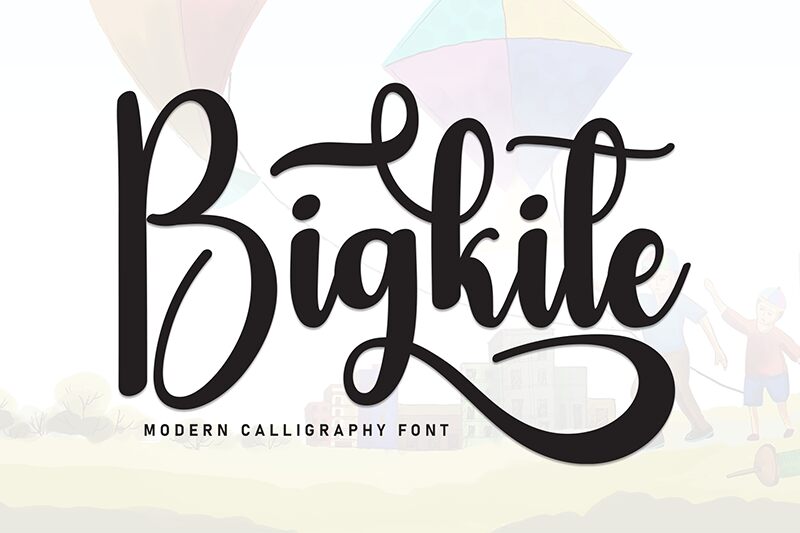
Bigkite
Bigkite font by Andi Moz is a striking handwritten free calligraphy font with ornamental and lively designs. Rich in casual elegance, this font has an expressive spirit and flowing harmony that translate into wonderful writing combinations between the letters, as well as complementary swashes that finish the elegant design most exquisitely.
Use Bigkite for logos and packaging, titles and book covers, posters and artwork pieces. Design special occasion cards for events like weddings or graduation ceremonies, or give your fashion magazines a new flair by designing their featured titles with this beautiful font!